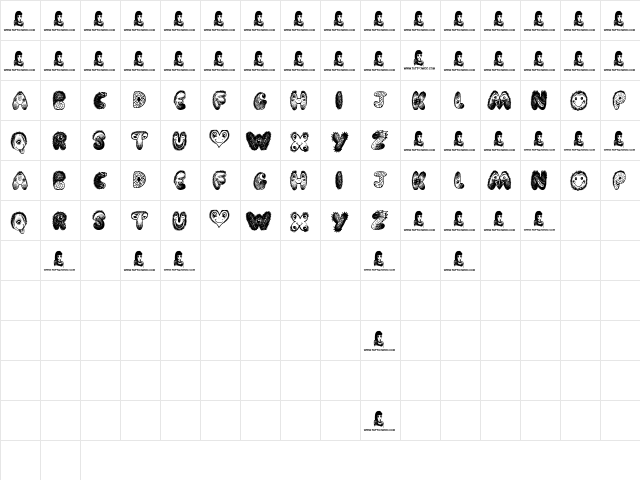
Cartoon Freak Regular
| Foundry | Jonathan S. Harris |
| Designer | Jonathan S. Harris |
Design Context for Cartoon Freak Typeface
Cartoon Freak trades formality for fun, with bouncy, characterful letterforms that bring warmth and energy to any project.
Font Pairing: Pairs well with a rounded or humanist sans for body copy, maintaining the friendly tone without relying on Cartoon Freak to carry extended reading.
Pro Tip: Use Cartoon Freak at larger display sizes where its expressive character can land. Pair with a clean, simple sans for body copy to maintain readability.